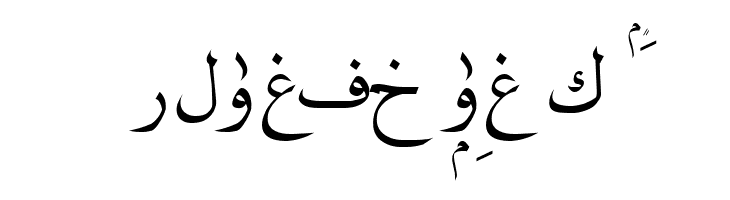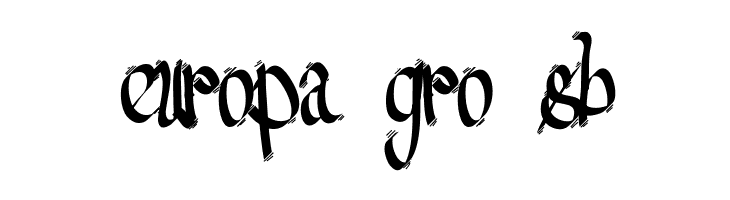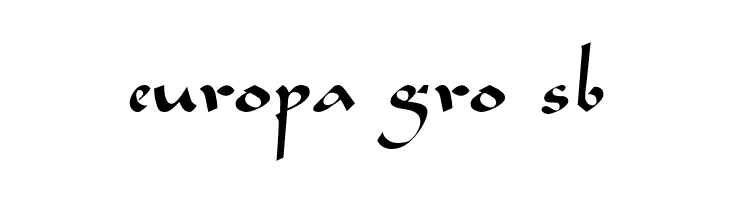
• Hesperides Demo
An ornate, decorative font with calligraphic elegance and intricate flourishes.
• Clerica Medium
( Paul Lloyd Fonts )
A decorative serif font with calligraphic flourishes and artistic lowercase letters.
• China Town
( Fonts by Abstract Type Design - Patrick Durr )
A decorative font with sharp, angular edges and an Asian calligraphy-inspired style.
• Pavane
An elegant script font with intricate swashes and a calligraphic style.
• Psuedo Saudi
A modern font inspired by Arabic calligraphy with bold, angular characters.
• Oncial
• Dobkin Plain
An elegant script font with flowing, calligraphic elements and ornate flourishes.
• Bambino
• KR Winds Of Change
• Genoa Italic